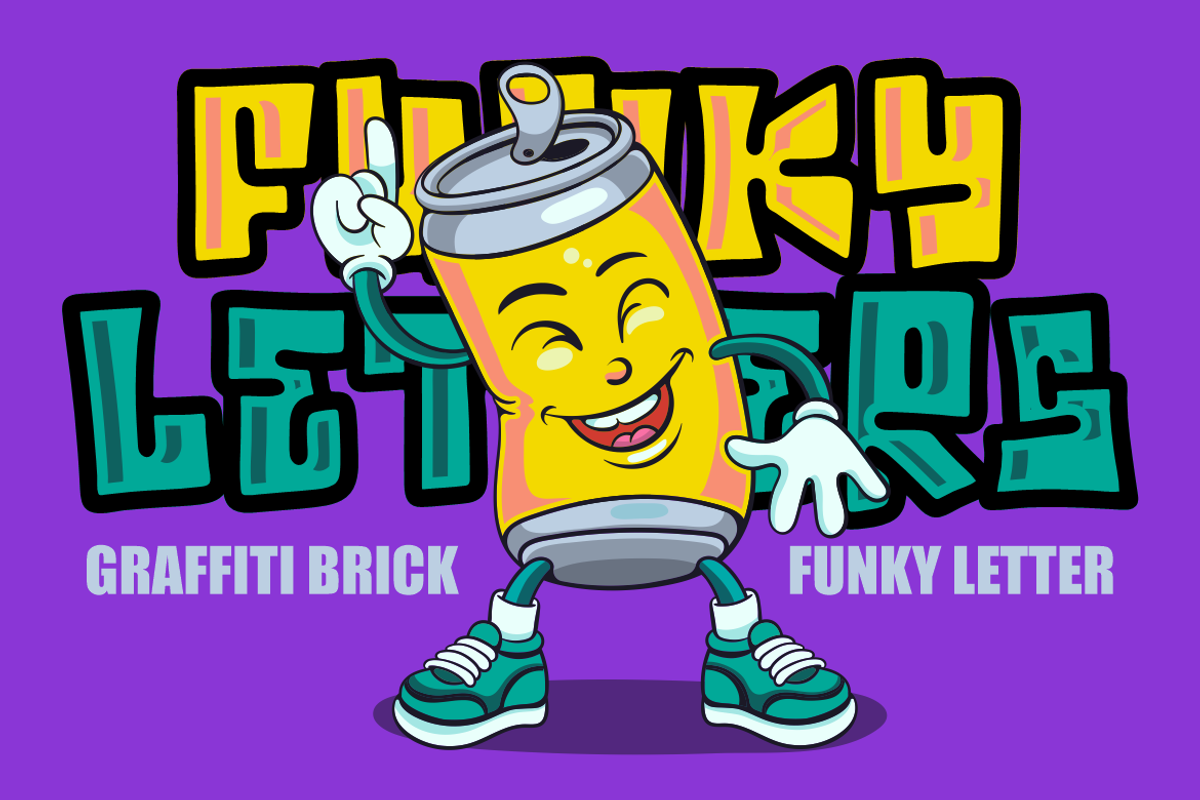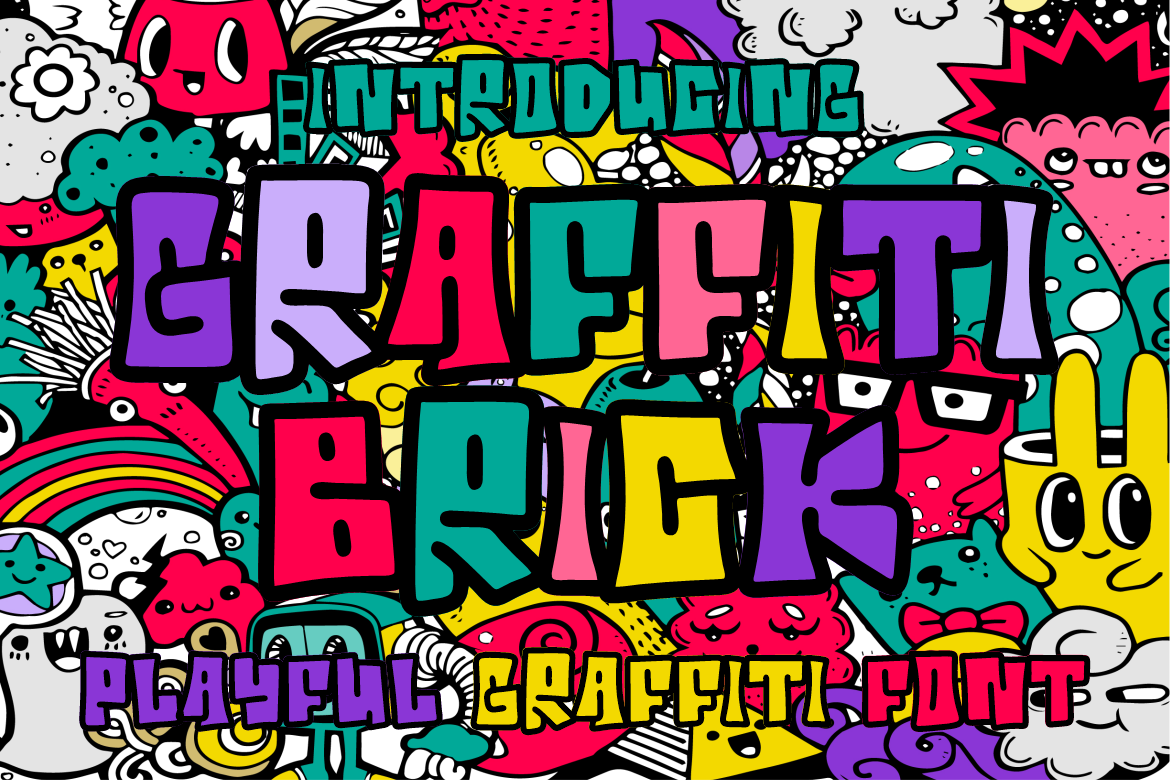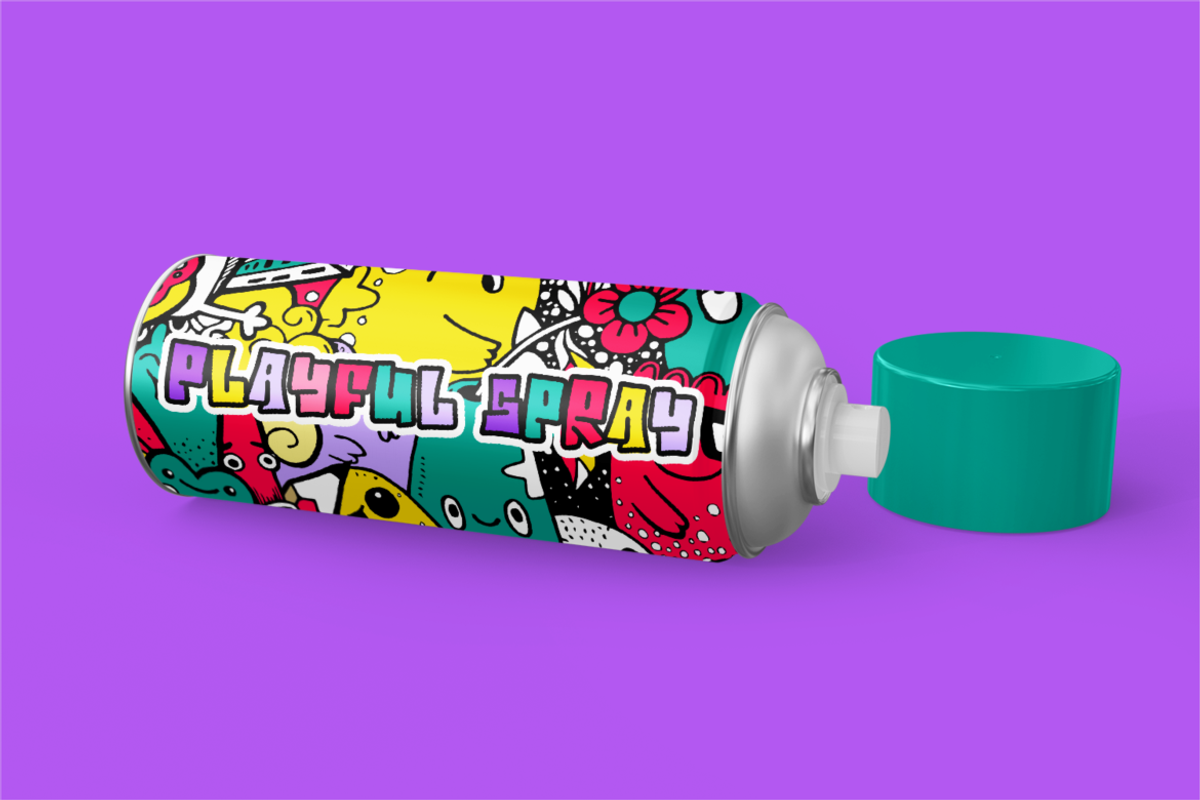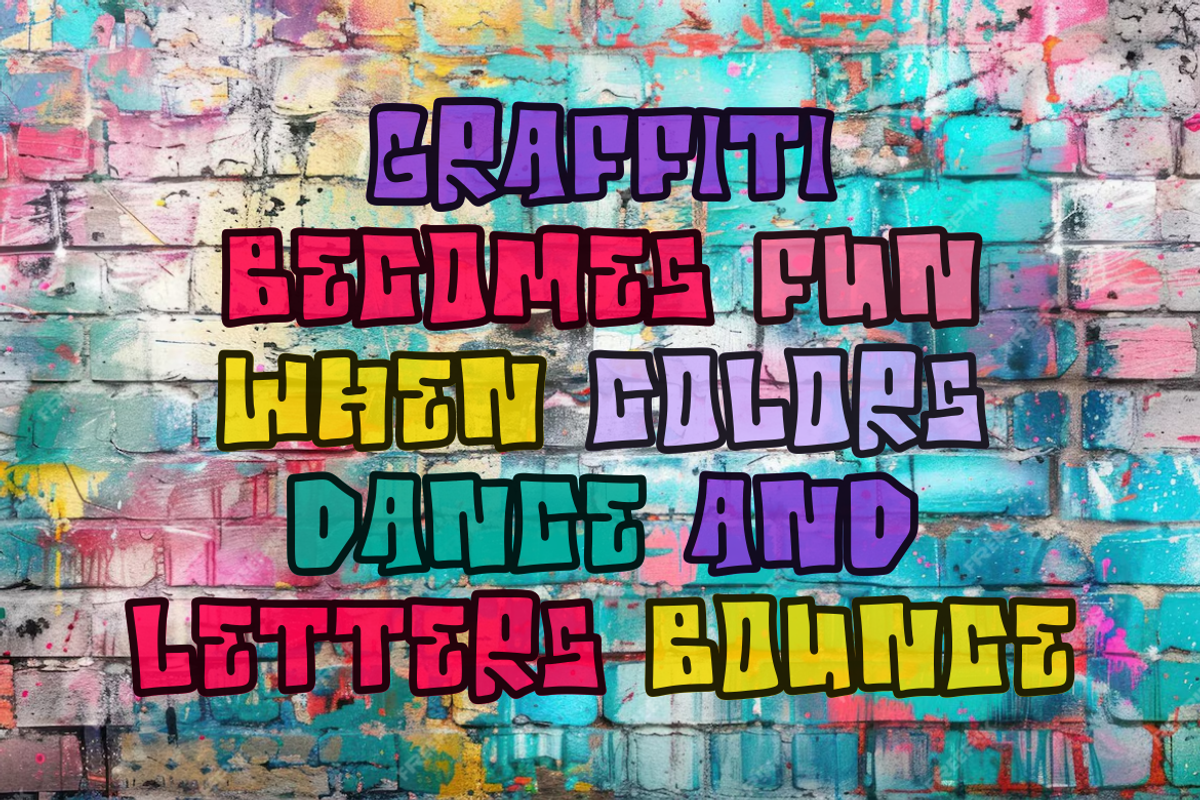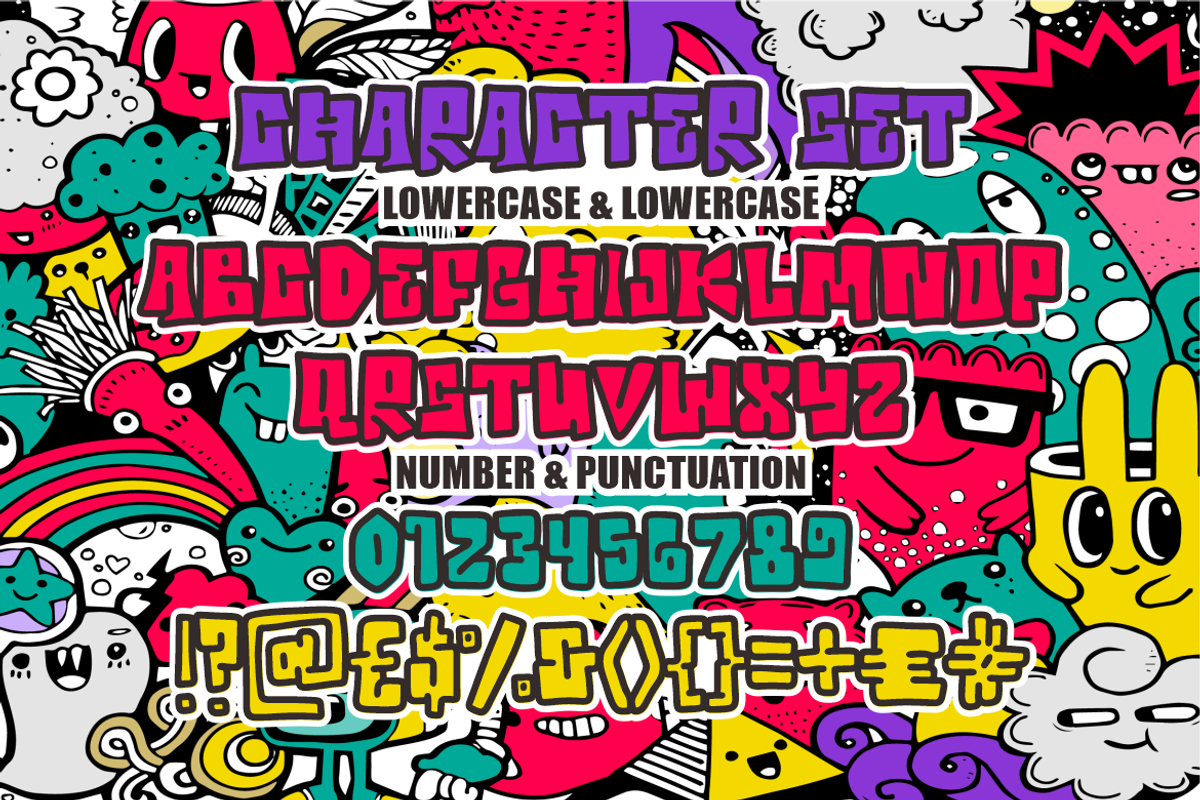
Graffiti Brick - Graffiti Font
Graffiti Brick – Graffiti Font is a dynamic and vibrant typeface that bursts with urban energy and youthful attitude. Inspired by the colorful spirit of street art and cartoon doodles, this font features bold, blocky characters wrapped in thick black outlines that mimic real-life graffiti tagging. Each letter has a unique, hand-drawn irregularity that creates a fun, spontaneous rhythm—perfect for designs that need to shout, pop, and play. The font’s playful asymmetry and multicolored showcase styling give it a rebellious charm while staying totally accessible for creative projects targeting kids, teens, or pop-art enthusiasts.
Ideal for use in branding, poster headlines, product packaging, t-shirt graphics, children's books, streetwear promotions, and creative marketing campaigns, Graffiti Brick delivers bold personality and creative flair. Whether you're designing event posters, sticker sets, or social media graphics, this font stands out with a streetwise twist and a joyful visual punch. Its full character set, including numerals and punctuation, ensures flexibility without compromising its quirky, blocky charm. Let your designs scream “urban fun” with every letter!